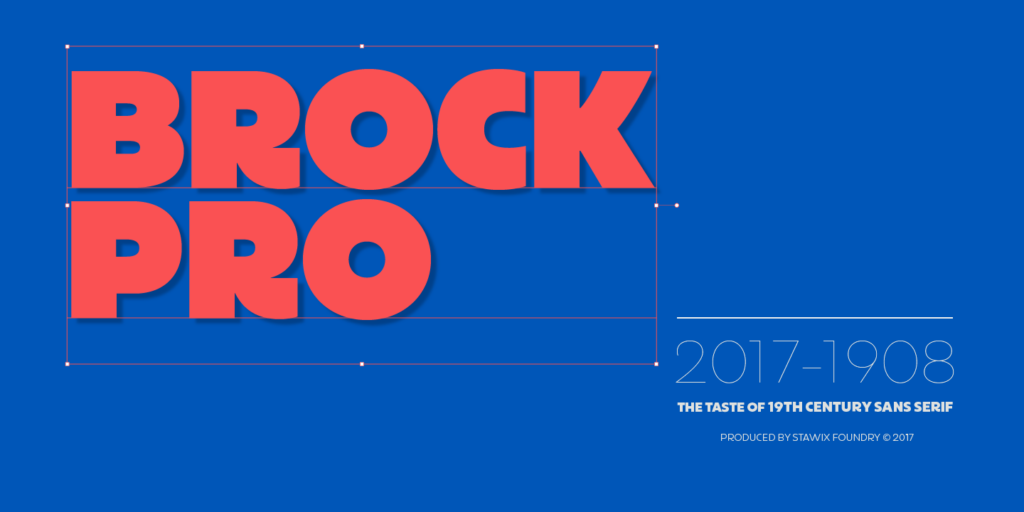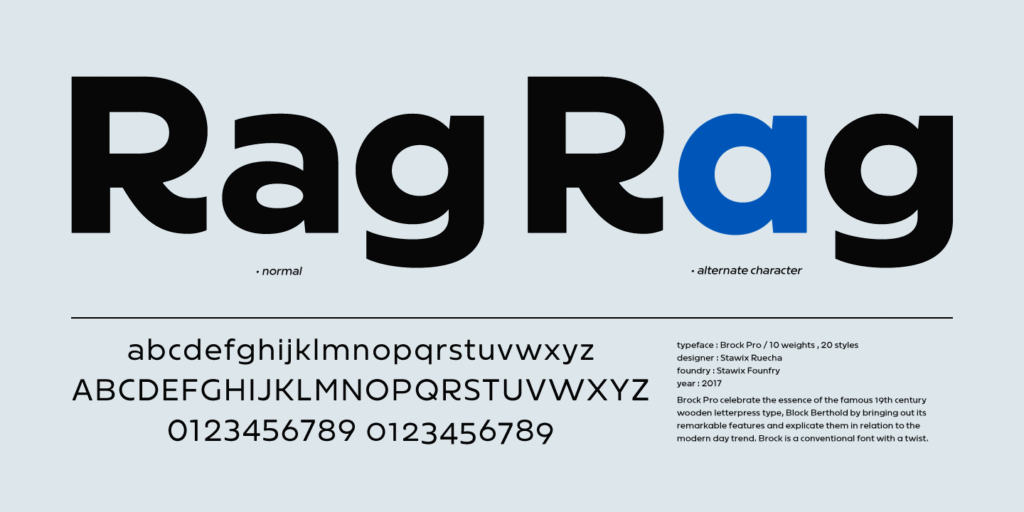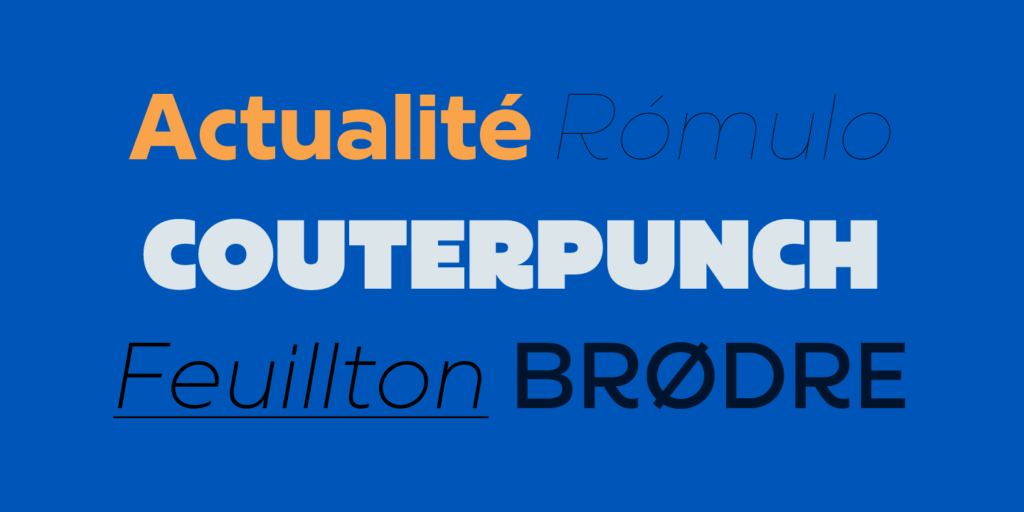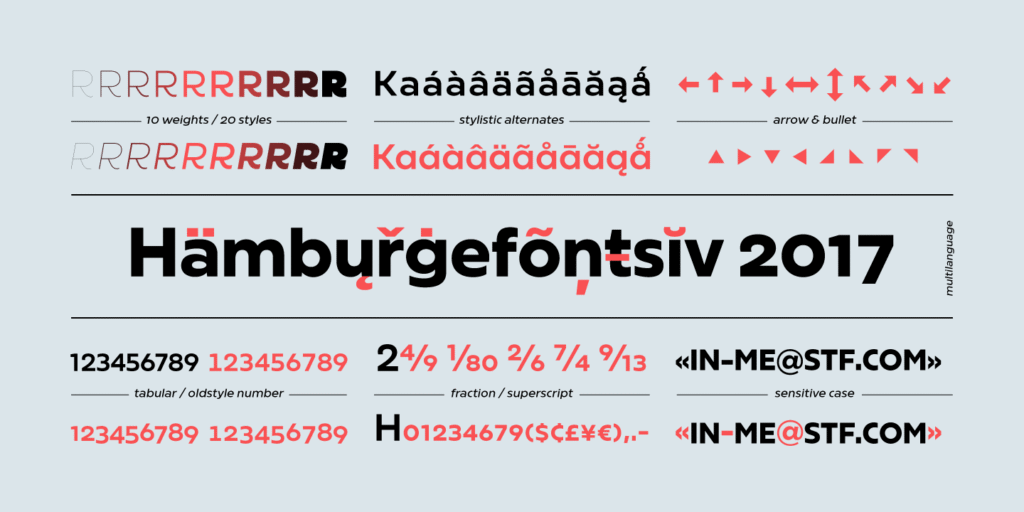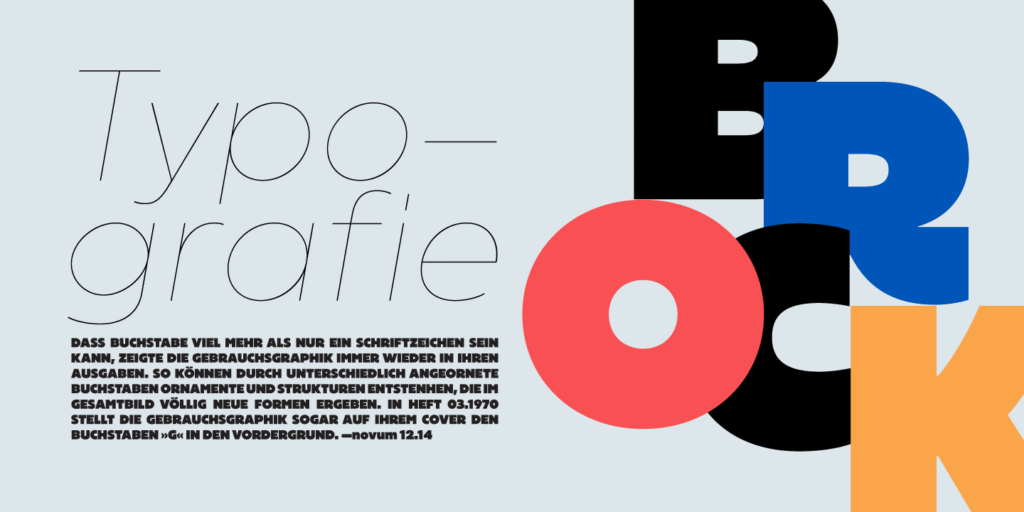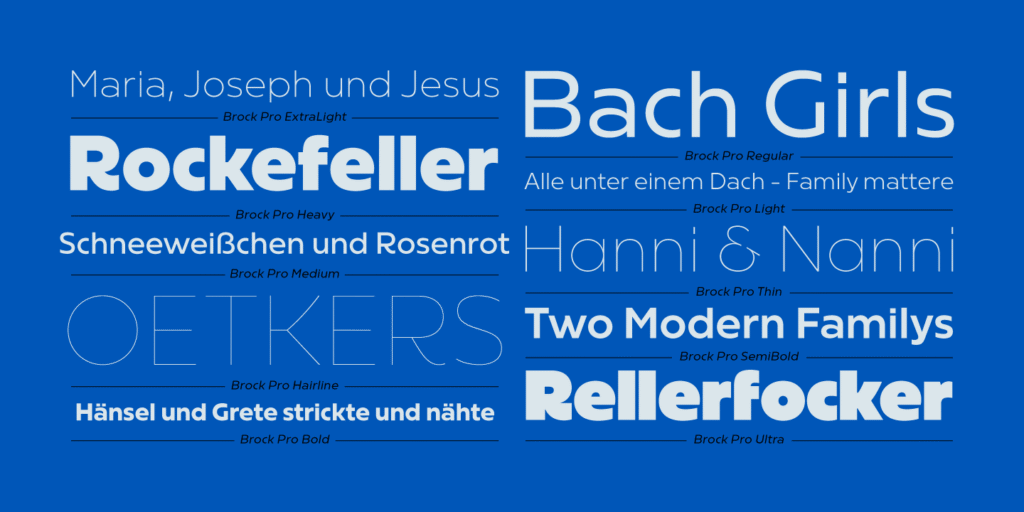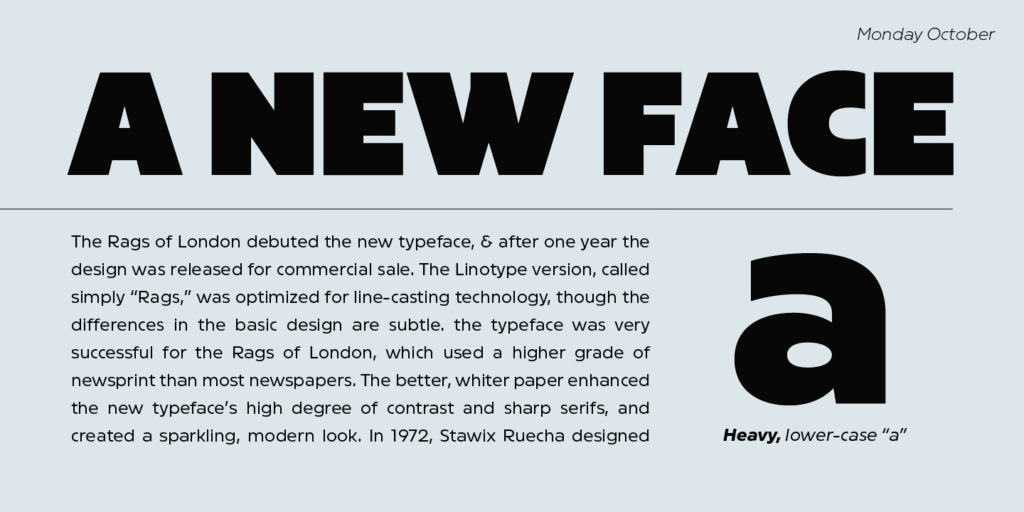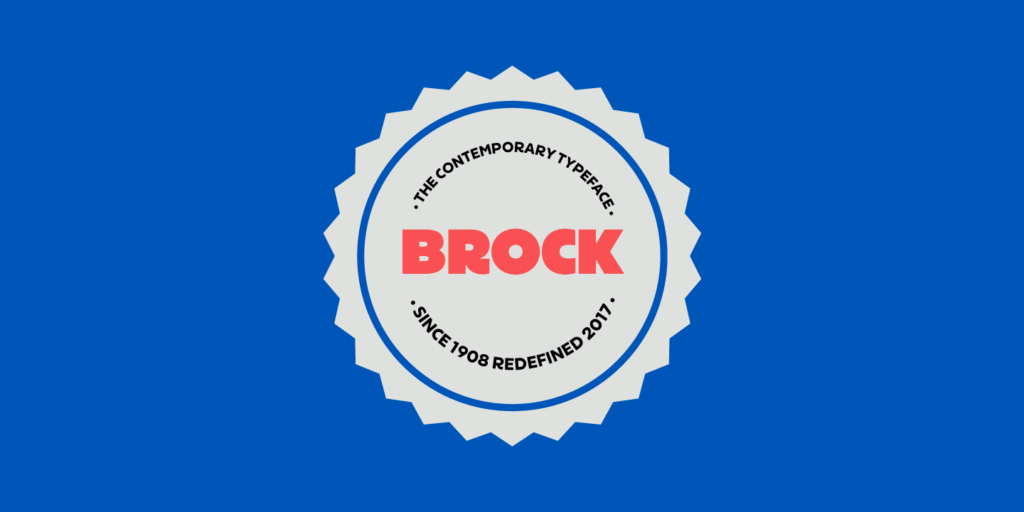
Brock Pro — STAWIX Foundry
Remarkable features, reimagined for today's design trends.
Designer
Stawix Ruecha
OpenType Features
About
Brock Pro celebrate the essence of the famous 19th century wooden letterpress type, Block Berthold by bringing out its remarkable features and explicate them in relation to the modern day trend. Brock Pro is a conventional font with a twist, fun, easy to use and has a very particular tone of voice that suits numerous design purposes. Brock pro comes in 10 weights and 20 styles to support a wide range of usage, every needs and great building brands, Brock Pro also available in both ttf. and otf.